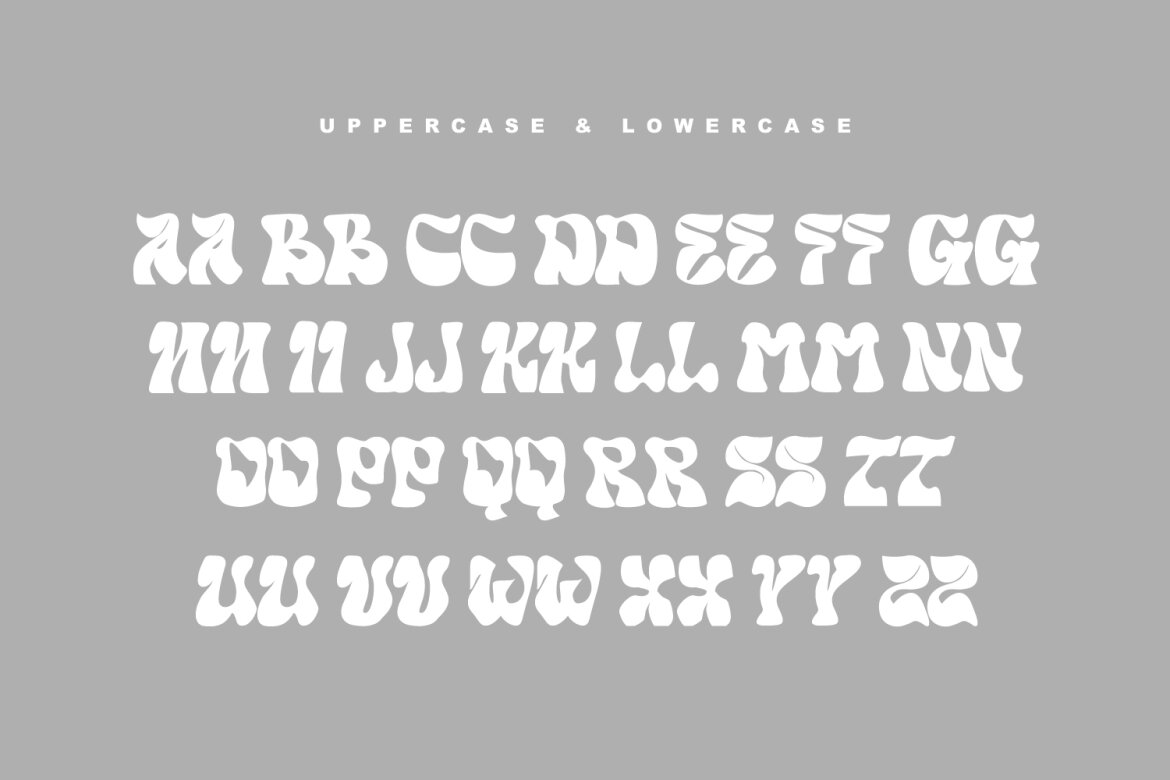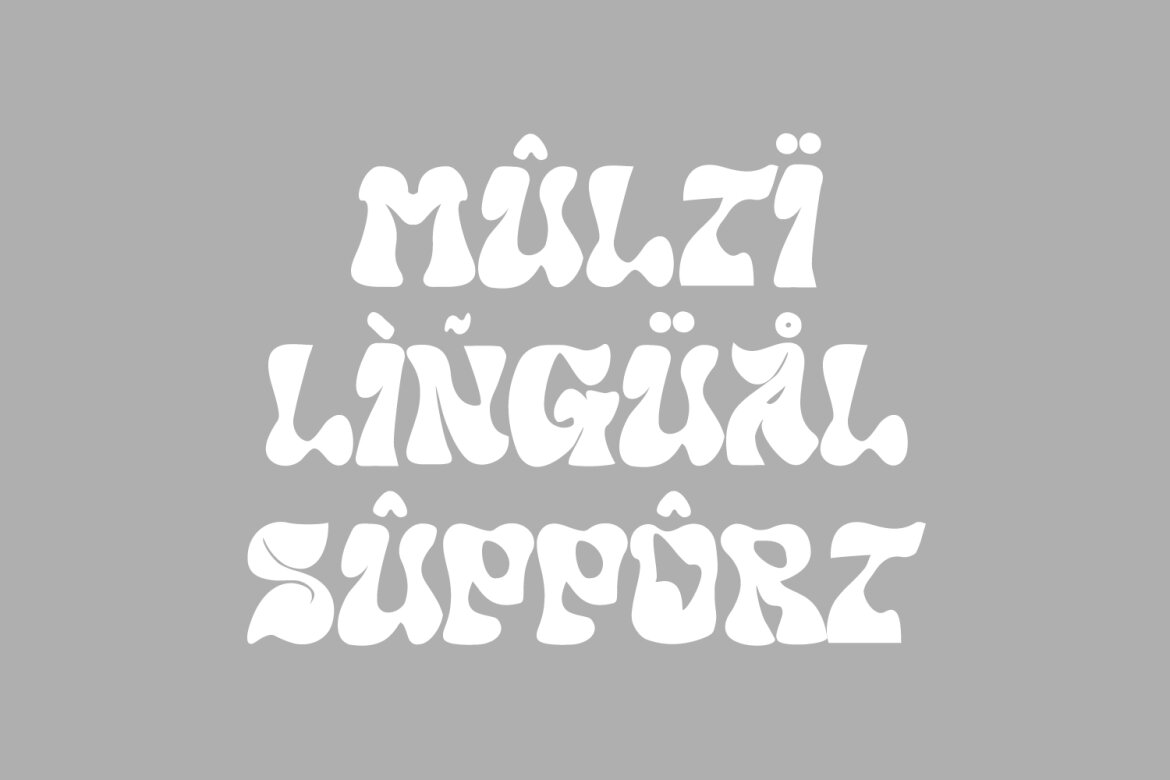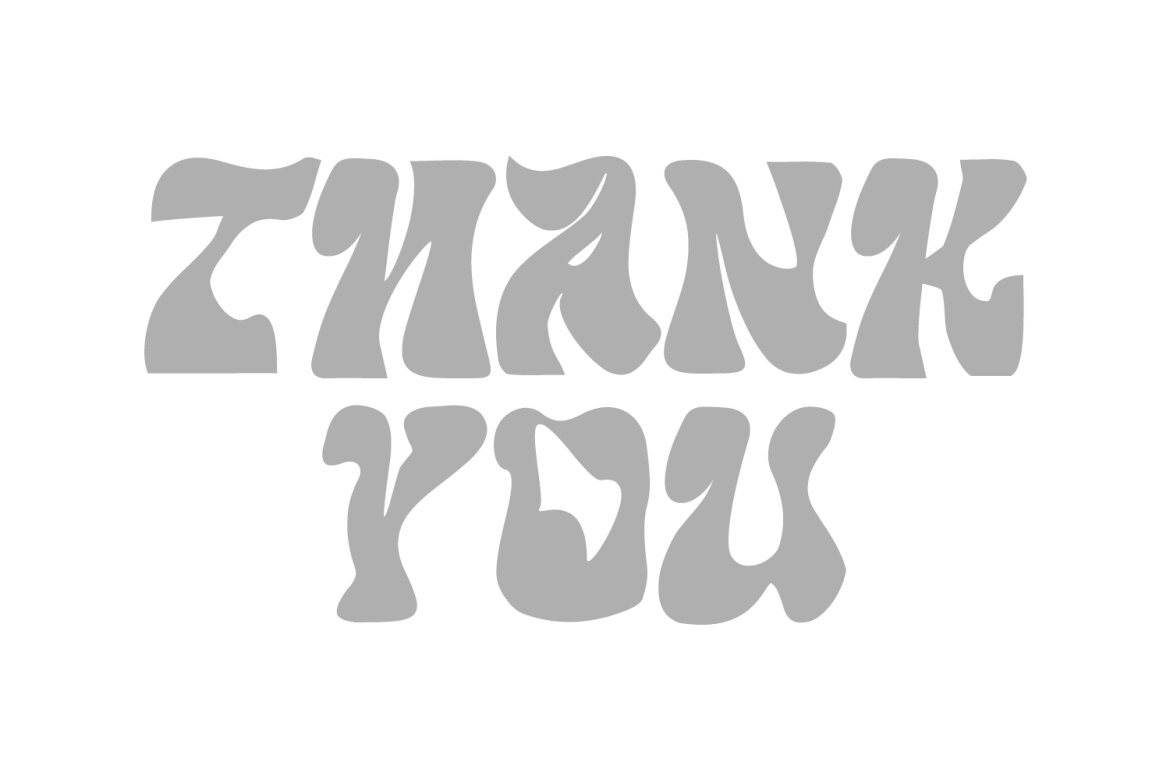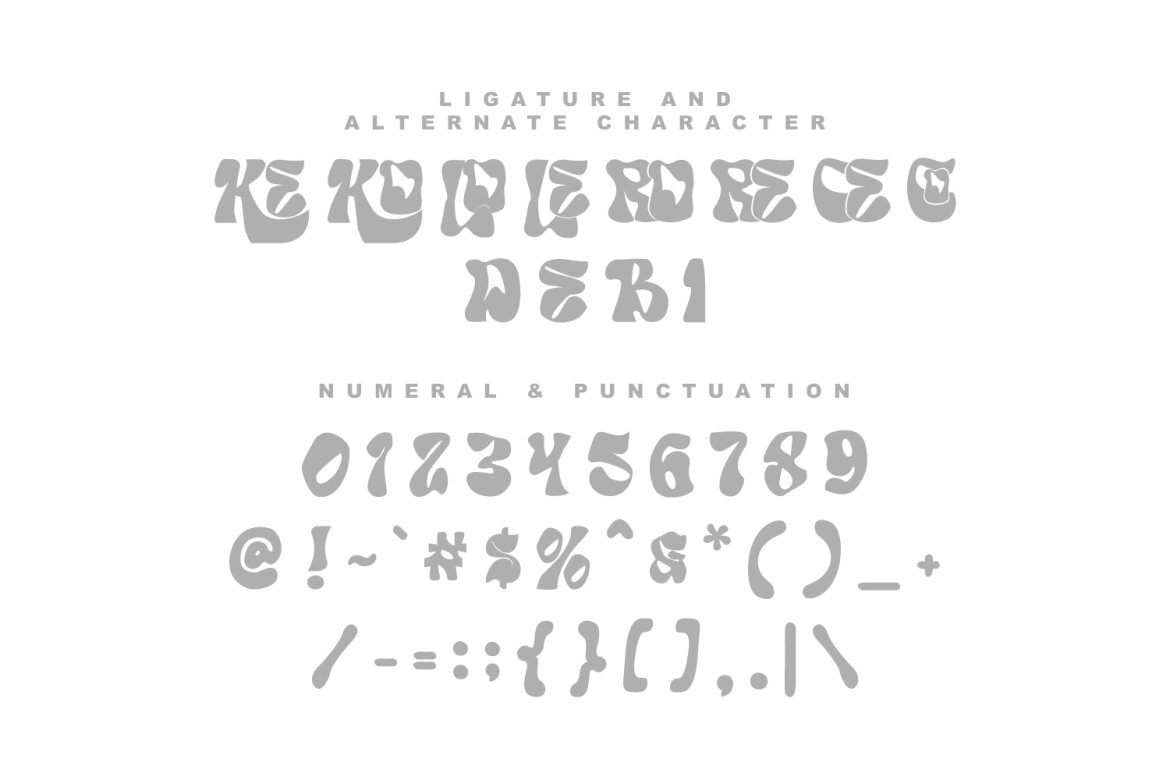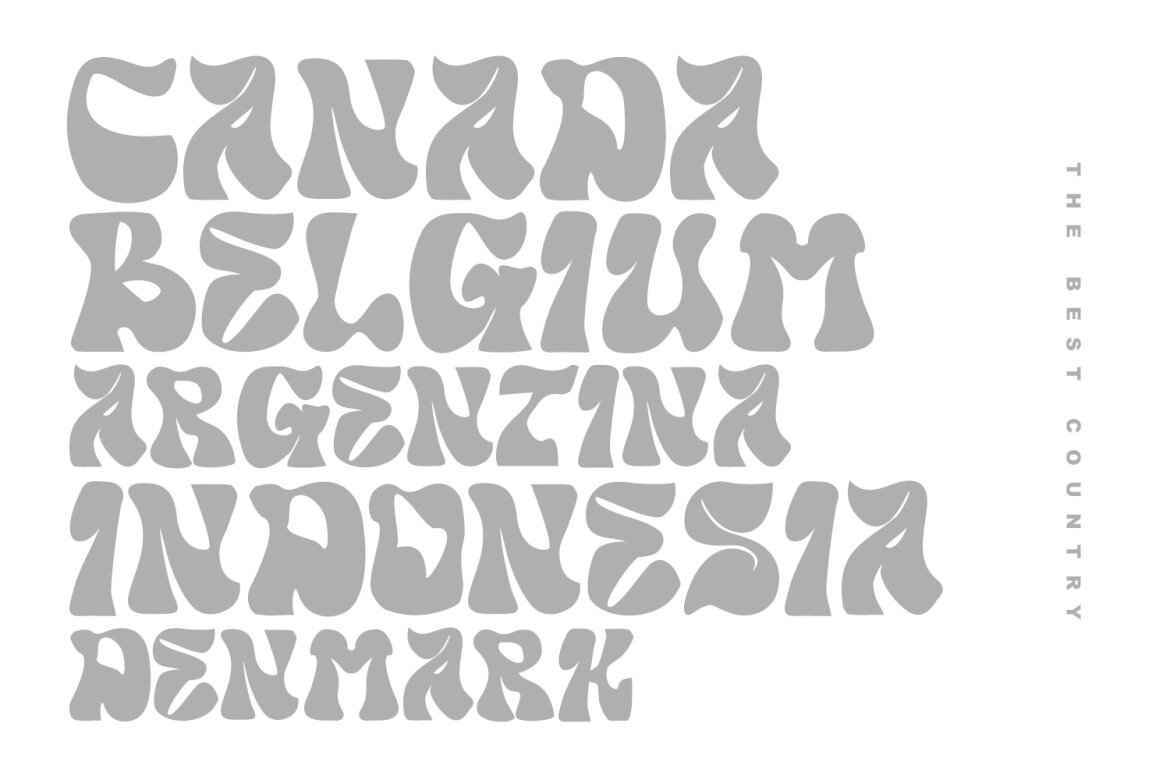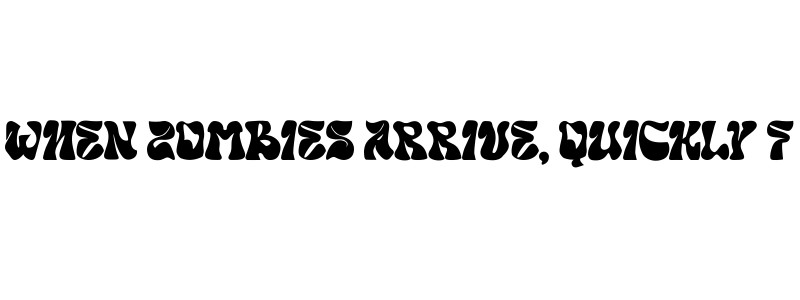
Soefi Neon Modern FREE Font
Soefi Neon
Soefi Neon a display font, fun character with a bit of ligatures. To give you an extra creative work.Soefi Neon font support multilingual more than 100+ language.